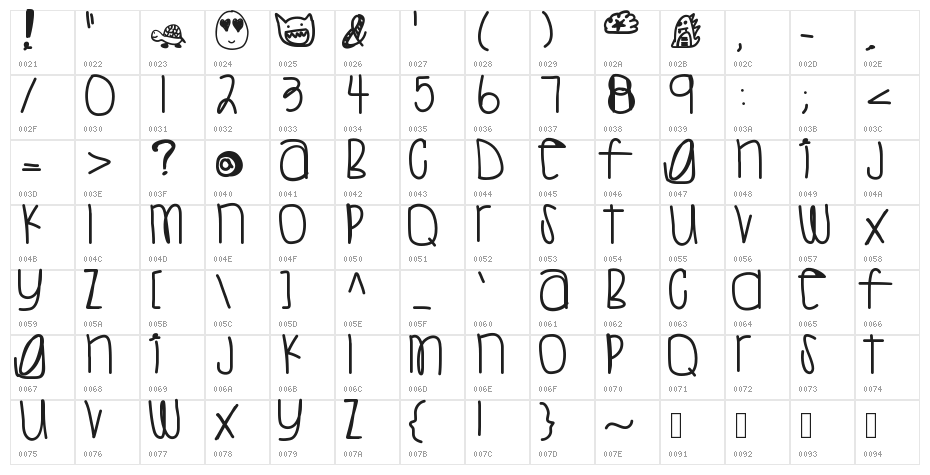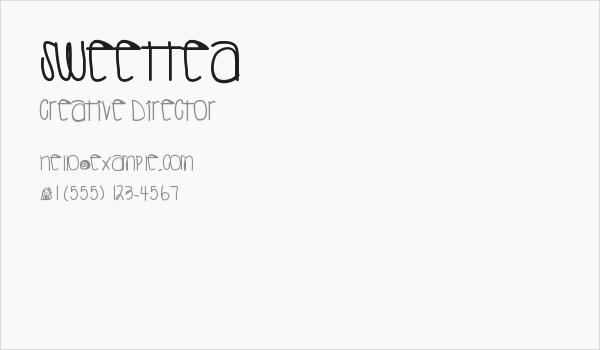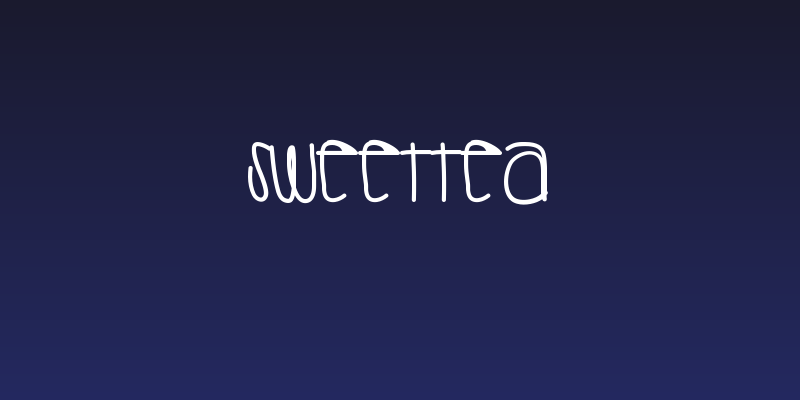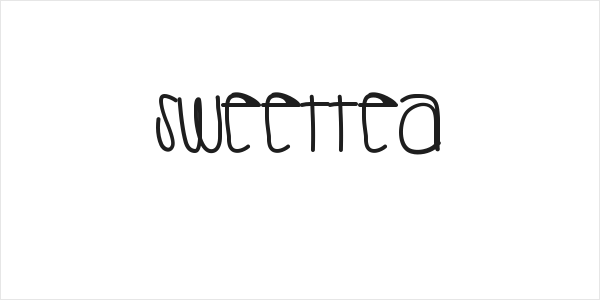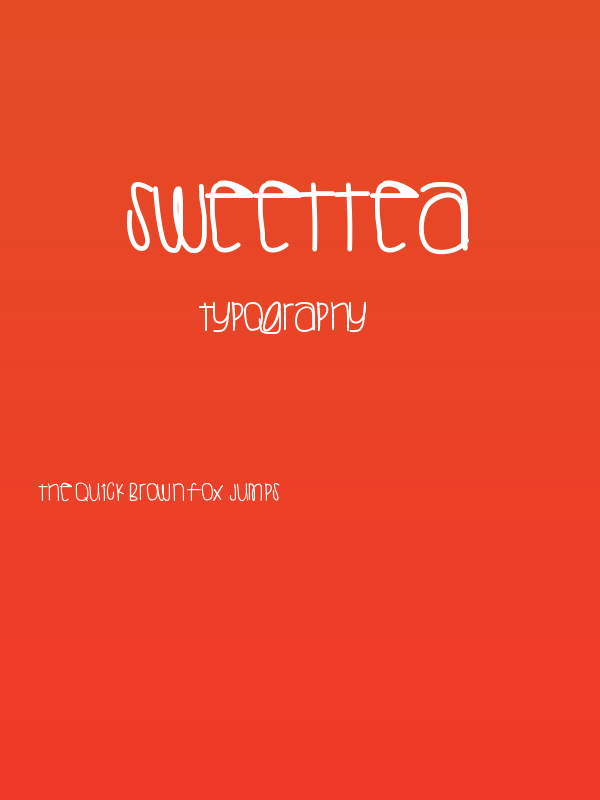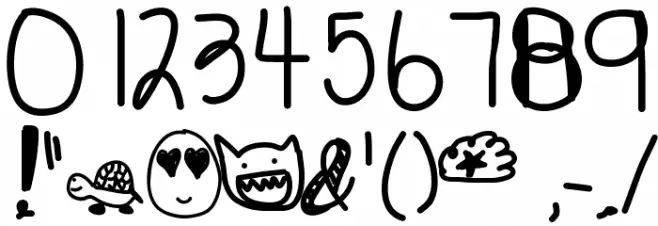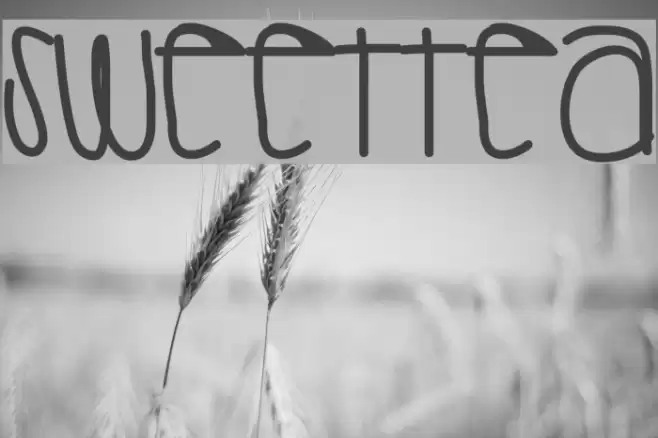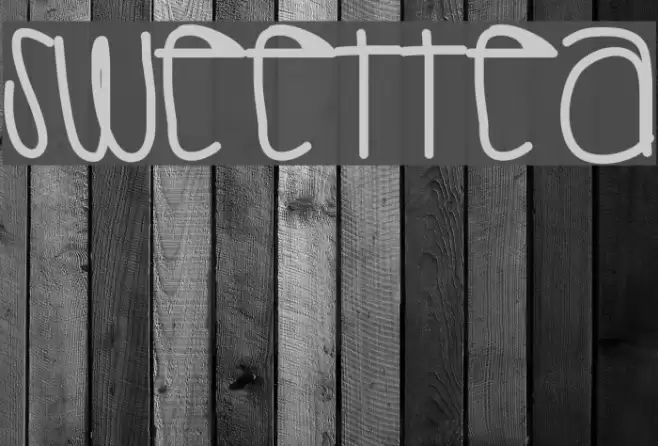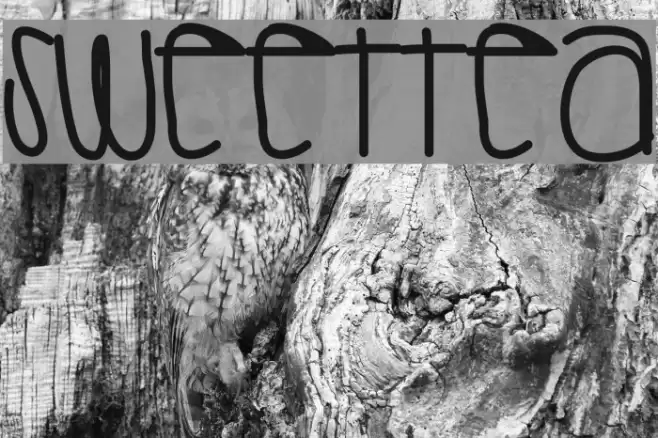
SweetTea Font
SweetTea Description
This playful and whimsical font features a handwritten style with a casual and friendly appearance. The characters are rounded and slightly irregular, giving them a charming, informal look. The uppercase and lowercase letters maintain a consistent style, with a smooth flow and a touch of quirkiness. The numbers are bold and clear, matching the overall aesthetic. Special characters include a variety of expressive symbols that add personality and fun to the font. This font is perfect for projects that require a lighthearted and approachable feel, such as children's books, greeting cards, or playful branding.